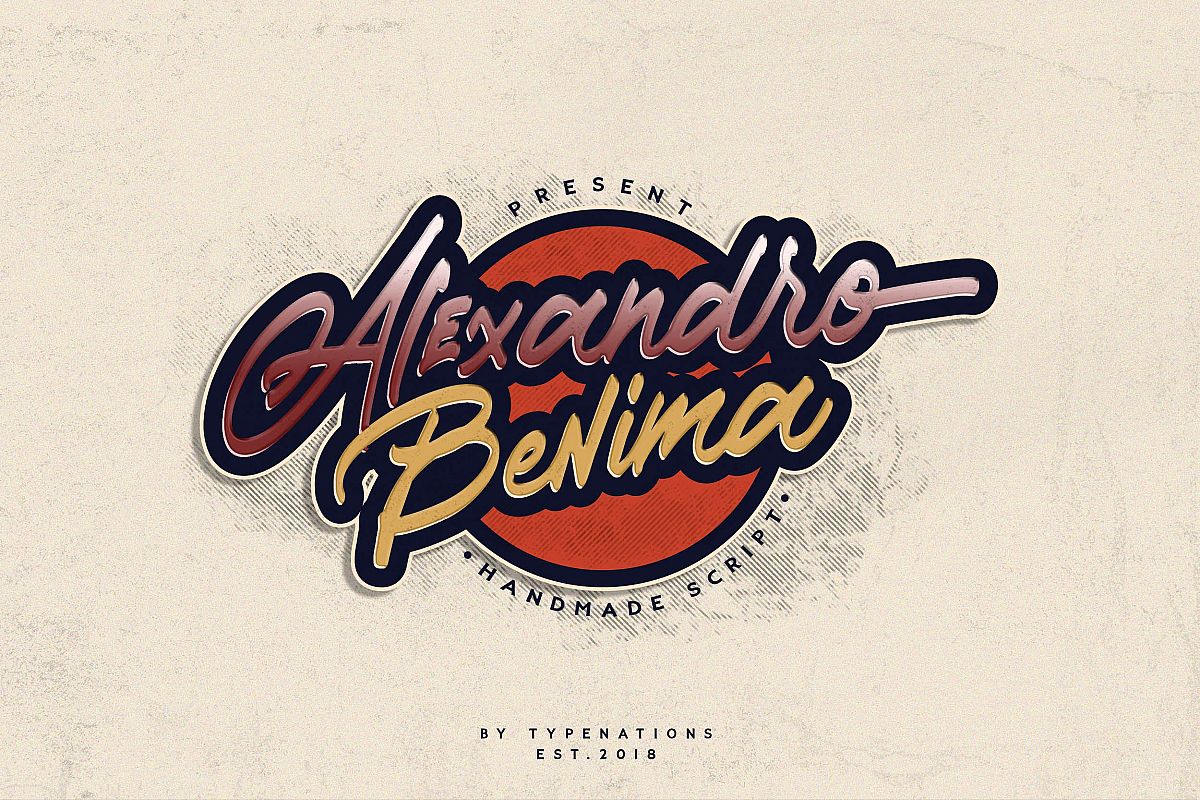
Alexandro Benima
Introducing Alexandro Benima.. our latest signature font with classy element that make this font so gorgeous. Alexandro Benima also comes with Ligatures, Stylistic Alternates and swash that will make the signature font more real. Type your text and start playing with alternates. Each of the letter has many options. This font is very best choice fonts for : Wedding Invitation, branding, web content, quotes, Posters, Logos, Print Ads, Digital Ads, Promotion Product etcFeatures
• Character set A-Z with special uppercase letters
• Discretionary Ligatures